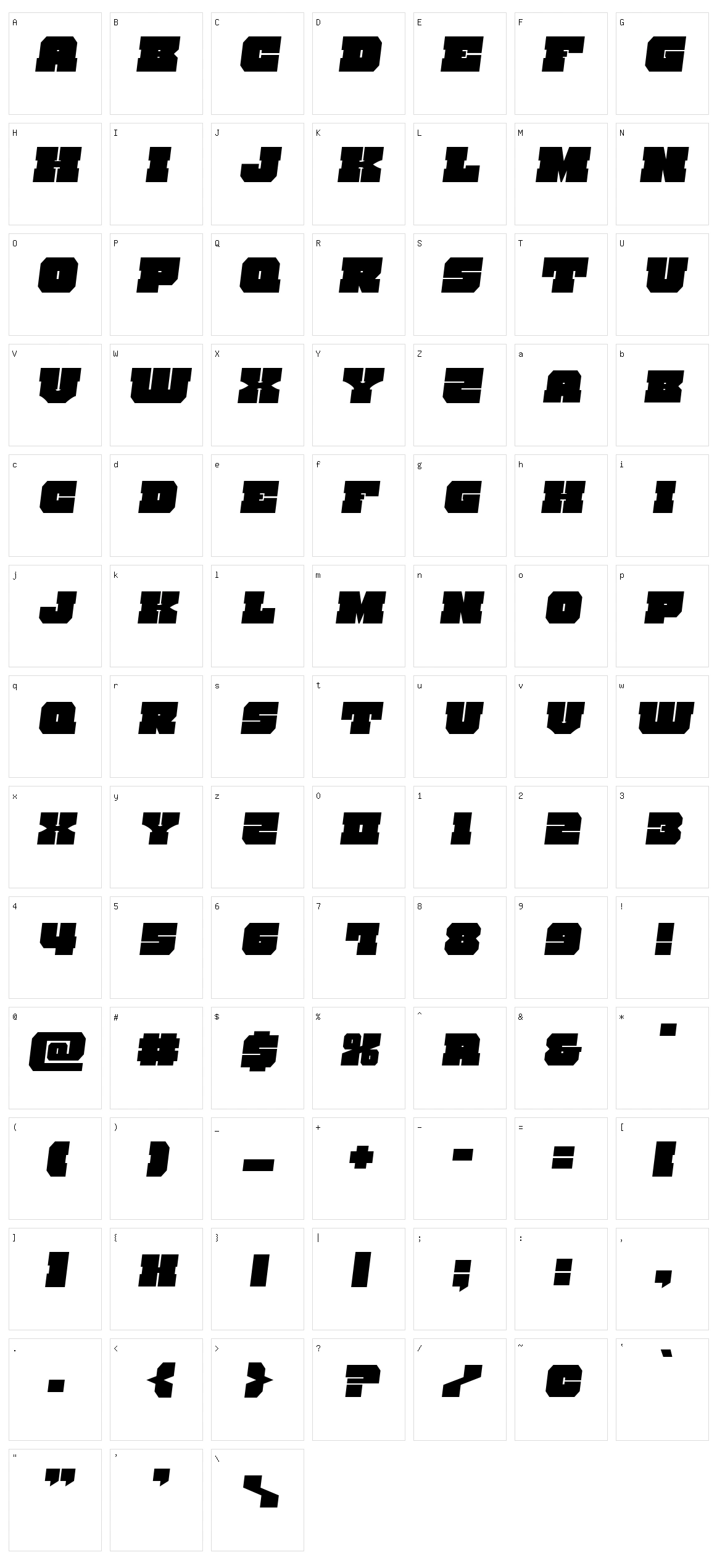
This font comes with the following 17 versions: Regular, Italic, Semi-Italic, Condensed, Condensed Italic, Condensed Semi-Italic, Expanded, Expanded Italic, Expanded Semi-Italic, 3D, 3D Italic, Gradient, Gradient Italic, Halftone, Halftone Italic, Leftalic and Super-Italic.